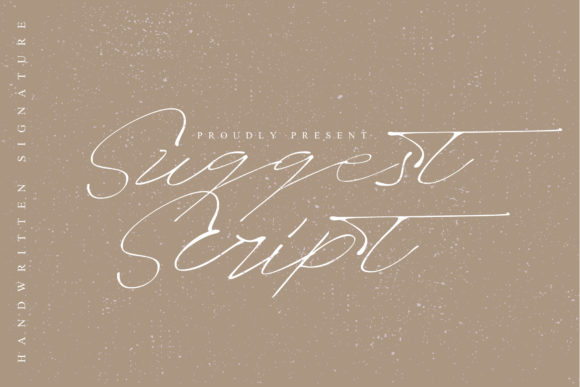
Suggest Script: A Handwritten Font for Elegant Branding
Understanding the Visual Character of Suggest Script
Finding a typeface that balances personality with professionalism is a common challenge. Suggest Script is a premium font that navigates this balance with a distinct, light handwritten style. Its character is defined by fluid, connected letterforms that mimic the natural flow of a pen on paper. Unlike heavier, more casual script fonts, it maintains a sense of elegance and airiness. The strokes are consistent, with a subtle, organic variation that gives it a human touch without sacrificing legibility. This isn't a font that shouts; it whispers with a confident, luxurious tone. Its visual appeal lies in this delicate nature, making it a versatile tool for adding a personal yet sophisticated spark to a design.
As a display font, its primary strength is in headlines, logos, and short bursts of expressive text. The personality of Suggest Script leans towards modern, refined, and approachable. It avoids the overly formal look of traditional calligraphy scripts or the overly casual feel of a rustic handwritten font. This positions it perfectly for projects that require a touch of intimacy—like a boutique wedding invitation, a high-end product label, or a lifestyle brand's social media header—while still feeling clean and intentional. It's a creative font that feels both current and timeless in its execution.
Where Suggest Script Truly Shines in Your Projects
The practical applications of a font like Suggest Script are broad, but its impact is most pronounced in specific contexts. In brand identity, it can form the cornerstone of a logo for businesses in the fashion, beauty, wellness, artisanal food, or event planning sectors. Its elegance communicates quality and care. For packaging design, it can elevate a product's shelf presence, suggesting that what's inside is crafted with attention to detail. Imagine it on a candle box, a skincare bottle, or a gourmet chocolate wrapper—it immediately sets a premium tone.
In the digital realm, this typeface is a powerful asset for web design and social media graphics. Used for a hero section headline, a call-to-action button, or profile branding, it can make a website or Instagram feed feel more cohesive and personal. Bloggers and content creators often use script fonts like this for title cards, quote graphics, and newsletter headers to create a signature aesthetic that readers recognize. For editorial design, it can be used sparingly in magazines or lookbooks for pull quotes, chapter titles, or feature headers to break the monotony of body text set in a serif or sans serif font.
It's also a favorite among crafters and hobbyists for personal projects. Think custom stationery, DIY wedding invitations, monogram designs, and personalized gifts. The font's friendly elegance makes it accessible for non-designers aiming for a professional result. For entrepreneurs and small business owners, using Suggest Script consistently across business cards, thank you notes, and promotional materials can build a recognizable and trustworthy brand image that resonates with a target audience of adults aged 20-50 who appreciate aesthetics and quality.
Making the Right Choice: Practical Guidance for Using Suggest Script
Choosing any design asset requires thoughtful evaluation. First, consider your project's core message. Suggest Script conveys luxury, creativity, and approachability. If your project requires a tone that is starkly minimalist, ultra-modern, or highly technical, this may not be the ideal primary typeface. Always view it in context. Test it with your actual copy—not just the alphabet—to assess how specific words and letter combinations look. Pay attention to readability at the intended size, especially for longer words or in smaller digital applications like mobile websites.
A critical skill in modern typography is effective font pairing. Suggest Script works beautifully as a display font paired with a clean, neutral typeface for body text. A simple sans serif font like Open Sans or Lato provides a stable, readable foundation that lets the script headline stand out. For a more classic feel, a serif font like Merriweather or Lora can create an elegant contrast. The key is to let the script be the star of the show; avoid pairing it with other highly decorative fonts, which can create visual chaos and harm visual hierarchy.
Before purchasing, review the font's full character set and included styles. Does it have the necessary punctuation, numerals, and special characters for your language? Some premium script fonts include alternates (different versions of letters) or ligatures (custom letter connections) that can help customize the look and avoid repetitive letter shapes in longer words. Understanding these features allows for more nuanced use. Finally, always verify the commercial font licensing. Ensure the license covers your intended use—whether it's for a single client project, unlimited commercial projects, or specific digital products like templates or merchandise. Proper licensing protects you legally and is a mark of professionalism.
Final Thoughts on a Versatile Design Tool
In the vast landscape of typeface options, Suggest Script holds its own as a reliably elegant and versatile handwritten font. Its strength is not in being the boldest or the most unique, but in its consistent ability to add a layer of refined personality to a wide array of projects. It's a tool that, when used thoughtfully, can significantly influence brand perception, foster audience engagement through its approachable warmth, and contribute to a cohesive visual identity. Whether you're crafting a brand from the ground up, refreshing marketing materials, or adding a personal touch to a creative project, it offers a beautiful and practical solution worth considering in your design toolkit.